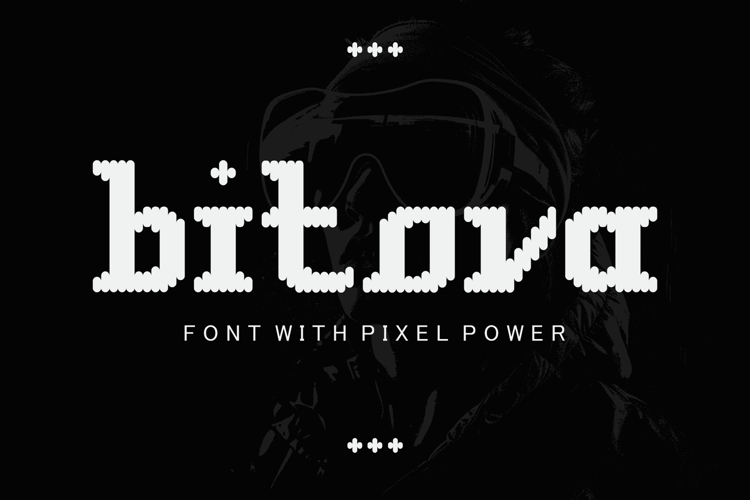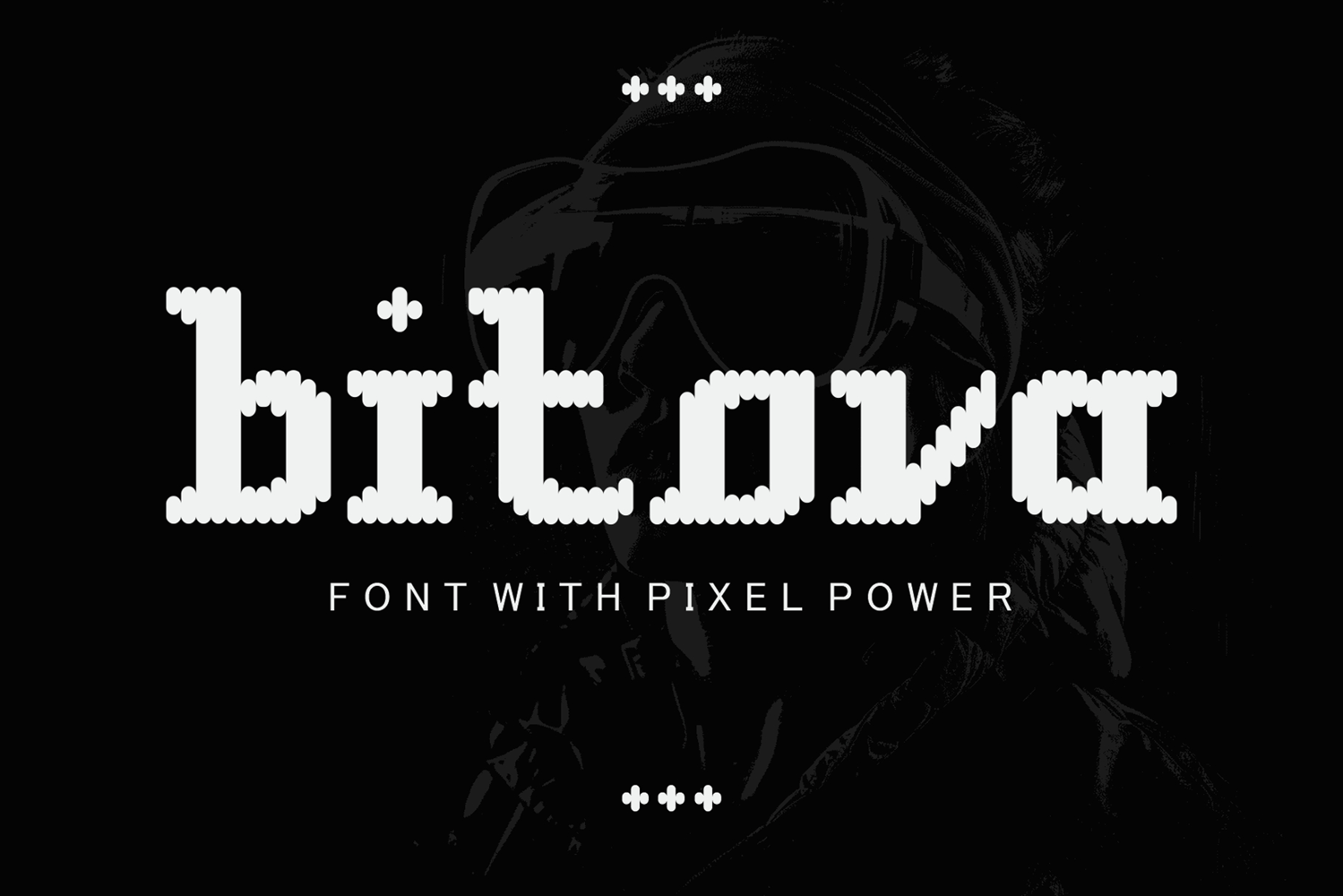
Bitova - Pixel Power Rounded Font
Bitlova is a rounded pixel display font designed for retro lovers, digital artists, and modern creators who want a powerful blend of nostalgia and style. Created using a unique dotted-pixel construction, Bitlova brings the spirit of classic 8-bit gaming into a cleaner, smoother, and more expressive visual form.
Featuring uppercase and lowercase letters, numbers, punctuation, and multilingual support, this font is perfect for a wide range of design needs. The dotted pixel texture makes every letter stand out, giving your typography a fun, bold, and instantly recognizable personality.
Use Bitlova for:
• Retro game-inspired branding
• Digital posters and website headers
• Stream overlays, gaming intros, and thumbnails
• Tech and electronic music artwork
• Stickers, merchandise, and graphic apparel
• Playful packaging and creative advertising
The rounded pixel dots give the font a friendly and modern look while maintaining its nostalgic DNA. Bitlova is ideal for designers who want retro visual identity without sacrificing clarity or aesthetic refinement. Whether used for bold headlines or standout visuals, it delivers a strong sense of digital character and creative energy.